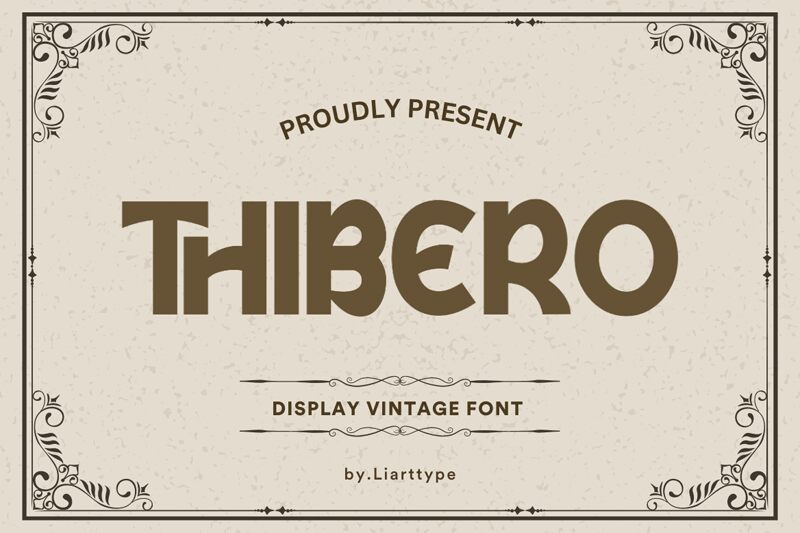
Thibero font by Liart type captivates with its retro charm and bold display style. Its strong, rounded letters evoke a nostalgic yet contemporary vibe, making it perfect for eye-catching packaging designs and striking logos.
Ideal for magazines, landing pages, and flyers, Thibero's aesthetic versatility enhances any creative project. Seamlessly blend vintage flair with modern design by leveraging this free font in your next venture.